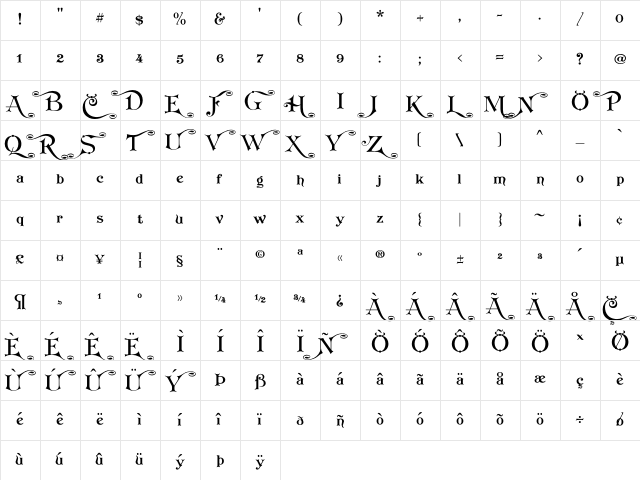
Koster Xmas Special Regular
Design Context for Koster Xmas Special Typeface
Koster Xmas Special is a composed and adaptable typeface that performs quietly and consistently across a wide range of design contexts.